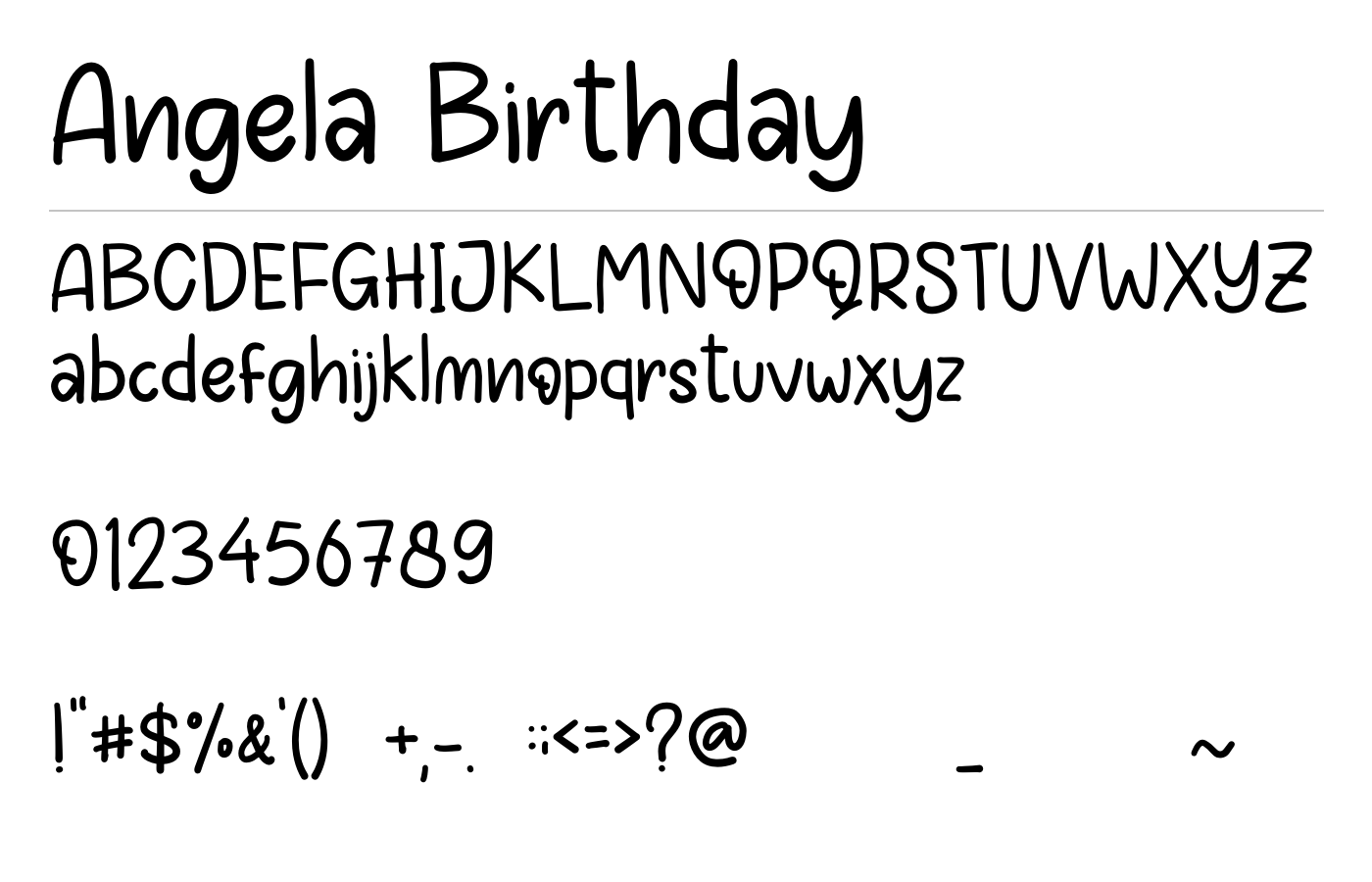
Angela Birthday Font is a playful and friendly handwritten sans serif typeface with a casual, welcoming feel. Its slightly irregular strokes and rounded edges make it perfect for informal designs such as birthday invitations, children’s books, and lighthearted branding. The font’s legible yet charming style works well in both headlines and short texts, bringing a warm, personal touch to creative projects.
Angela Birthday Font
About Angela Birthday Font
| Font family | Angela Birthday Font |
| Designer | Ahmad Afandi |
| Trademark | Letterafa Studio |